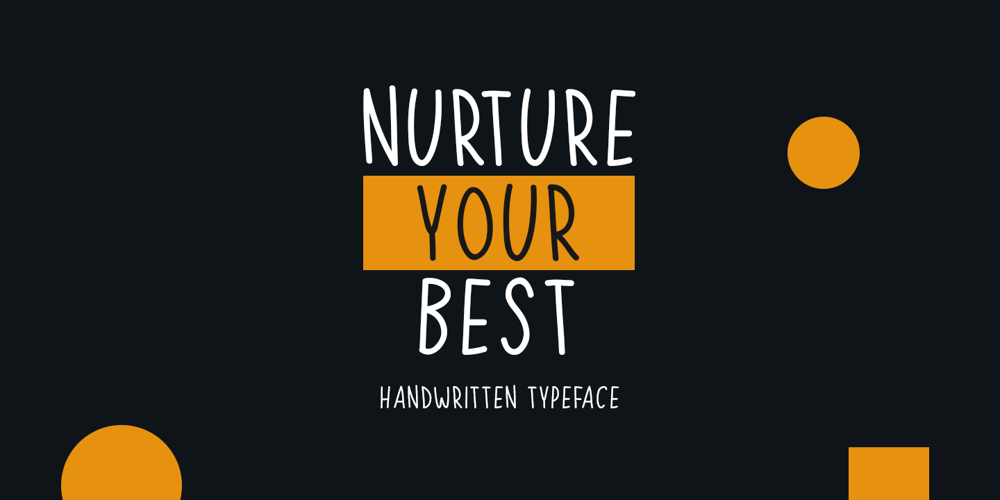
Nurture Your Best Font Family was designed by Md Shohail Bhuian and published by Seemly Fonts. Nurture Your Best contains 1 styles and family package options. Nurture Your Best is a modern and clean font. Its versatility and neat vibe will brighten up each of your designs. Have fun with this beautiful font and explore its endless variations.